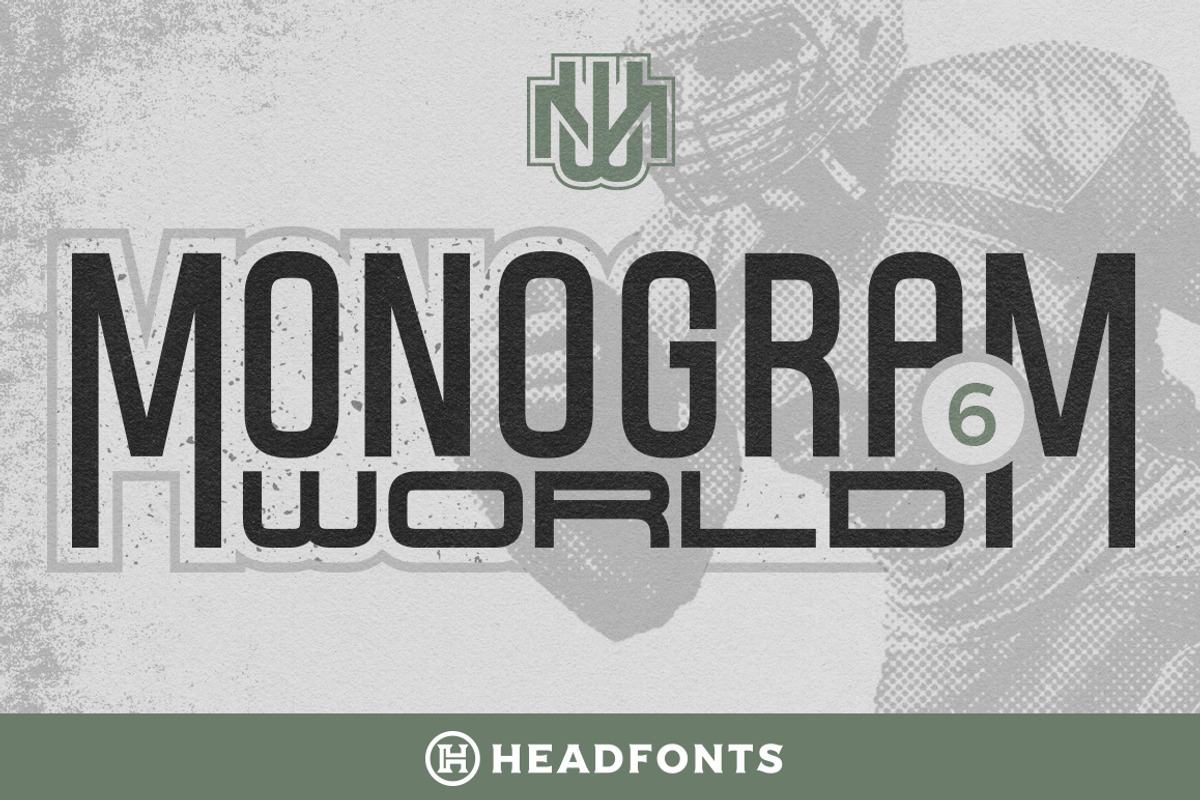
The Monogram World Sport Font Free Download is a dynamic and bold typeface designed with sports and athletics in mind. Perfect for creating logos, jerseys, posters, and other sporty designs, this font adds energy and impact to your projects. Please note, for commercial use, a license must be purchased. You can download it for free for testing purposes.
With its strong, modern design and monogram-style lettering, the Monogram World Sport Font Free Download is ideal for projects that need a sporty, professional, and aggressive aesthetic. Whether you’re designing for sports teams, fitness branding, or event promotions, this font brings a powerful, sporty vibe to your work.